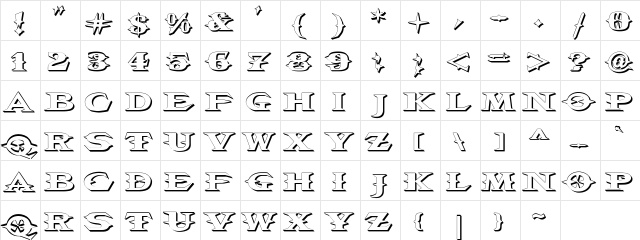
VTCBelialsBlade3d regular
Design Context for VTCBelialsBlade3d Typeface
VTCBelialsBlade3d is a composed and adaptable typeface that performs quietly and consistently across a wide range of design contexts.
Pro Tip: Use VTCBelialsBlade3d in both headline and body roles to test its range before committing to a single application.